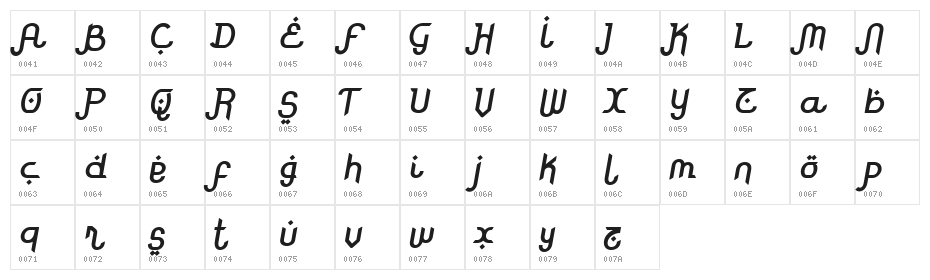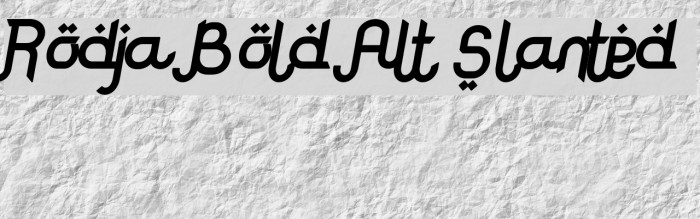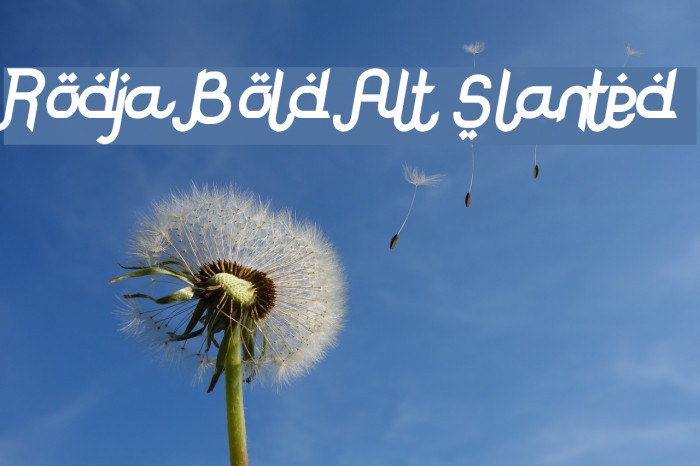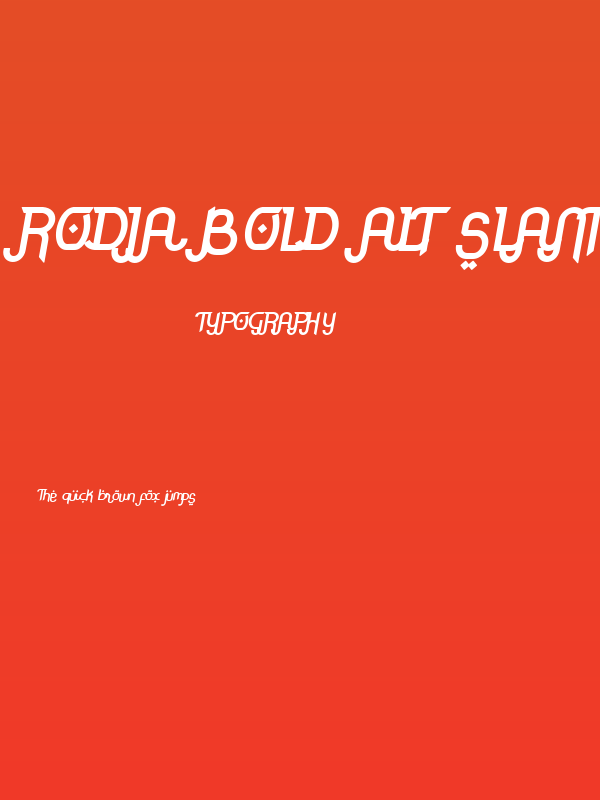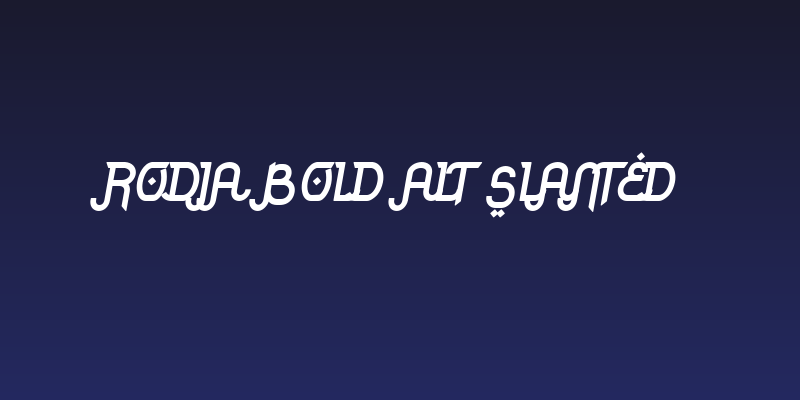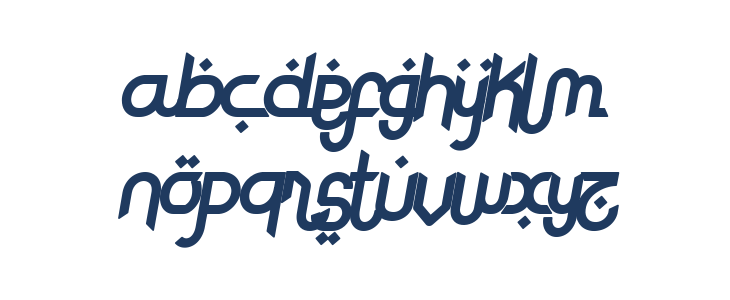
Rodja Bold Alt Slanted Font
Rodja Bold Alt Slanted Description
This font features a bold and slanted style with a unique, modern twist. The characters are designed with a distinct geometric flair, incorporating sharp angles and smooth curves. The uppercase and lowercase letters maintain a consistent weight, providing a cohesive look across the alphabet. The font includes diacritical marks, enhancing its versatility for various languages. The numbers and special characters are crafted to match the overall aesthetic, ensuring a seamless integration in any design project. This font's boldness and slant give it a dynamic and energetic feel, making it suitable for eye-catching designs.
| Proposed Projects | Ideal for branding, posters, and headlines that require a strong visual impact. |